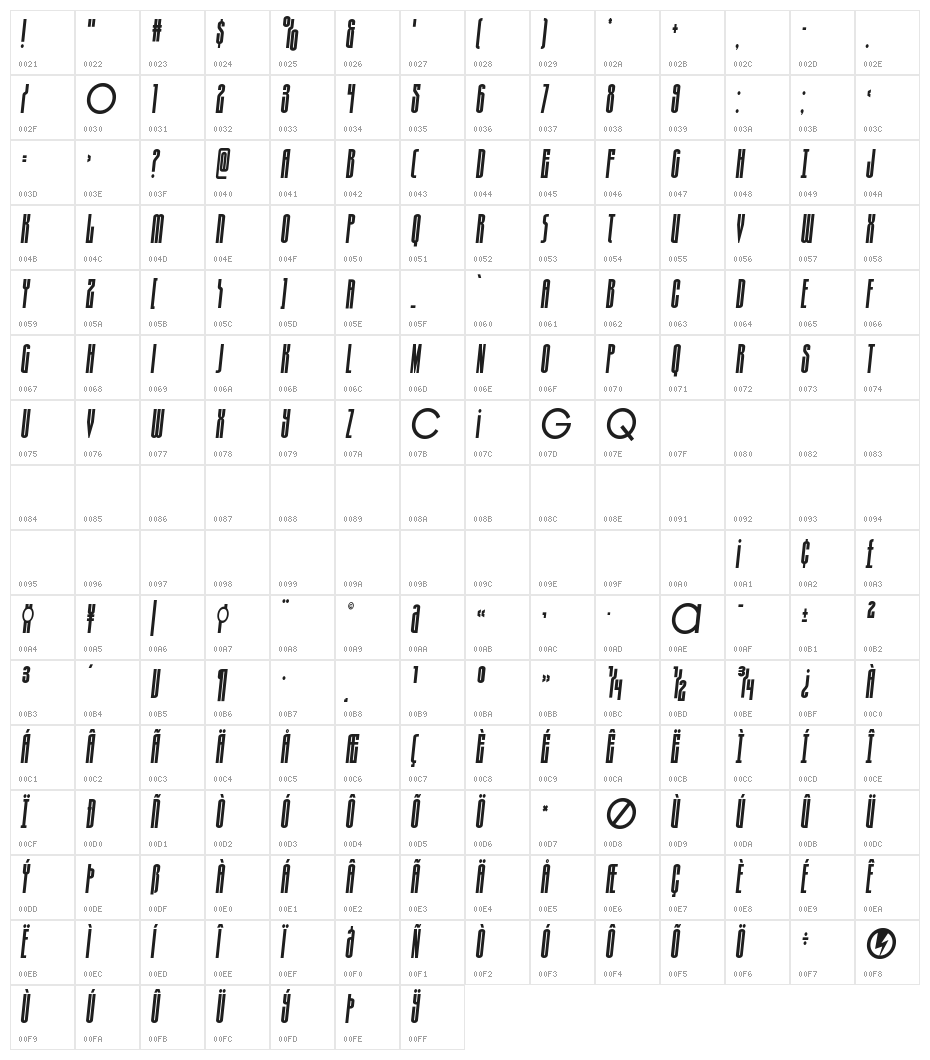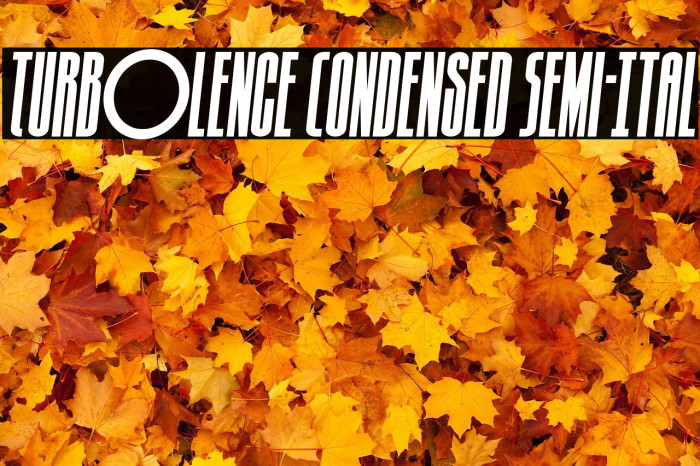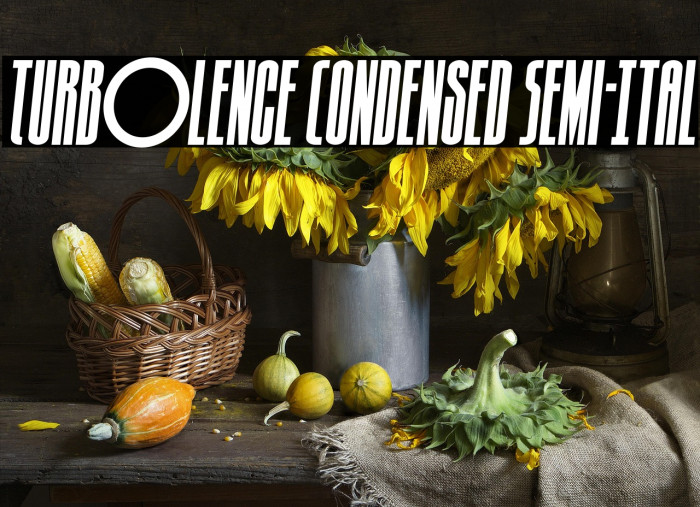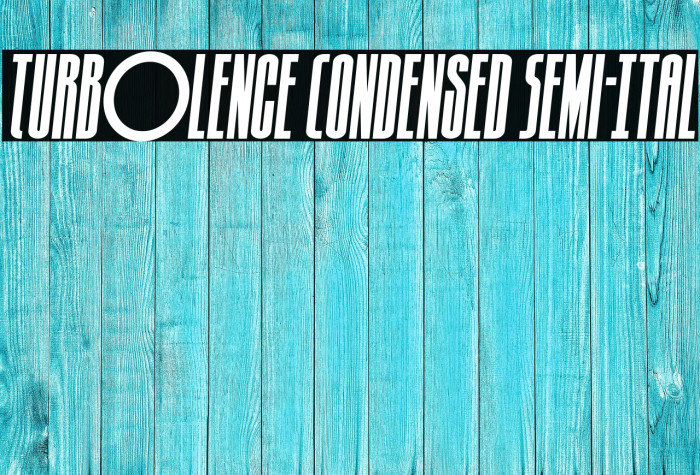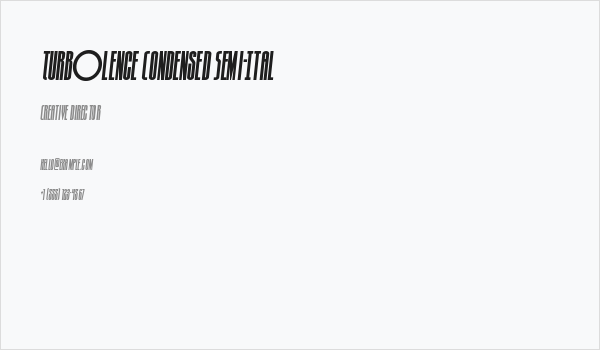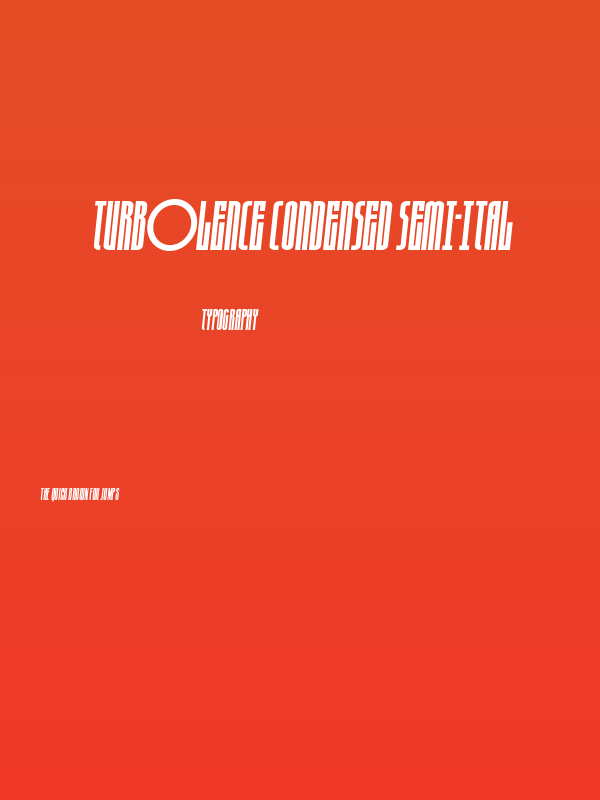
Turb0lence Condensed Semi-Ital Font
Turb0lence Condensed Semi-Ital Description
This font features a bold and condensed style with a semi-italic slant, giving it a dynamic and energetic appearance. The characters are tall and narrow, emphasizing verticality and creating a sense of movement. The strokes are consistent in weight, contributing to a uniform and cohesive look. The design is modern and sleek, making it suitable for attention-grabbing headlines and impactful designs. The spacing between characters is tight, enhancing the condensed nature of the font. The overall style is contemporary and assertive, perfect for projects that require a strong visual presence.
| Proposed Projects | Ideal for sports branding, posters, headlines, and dynamic advertising campaigns. |